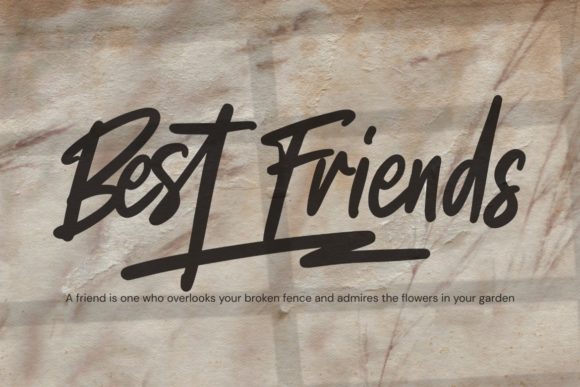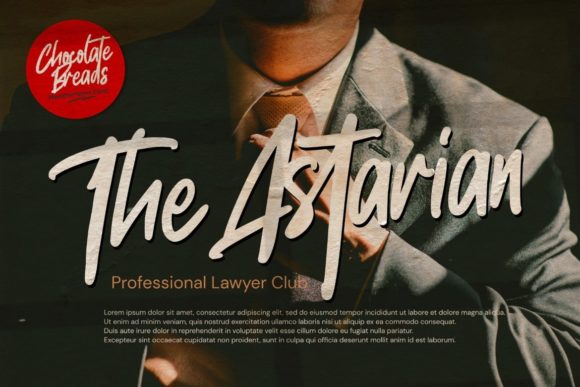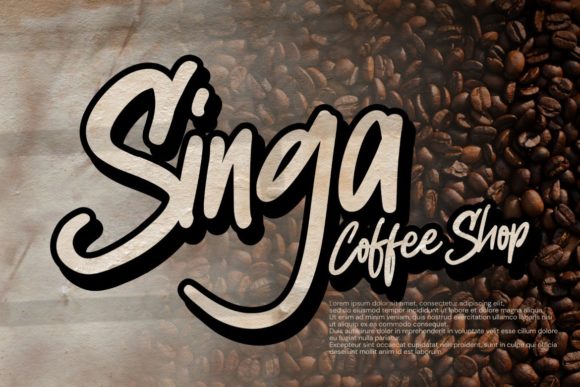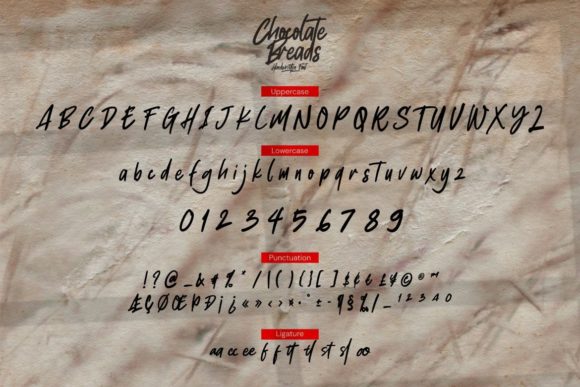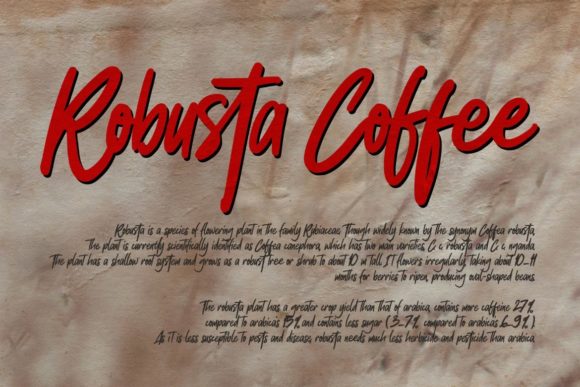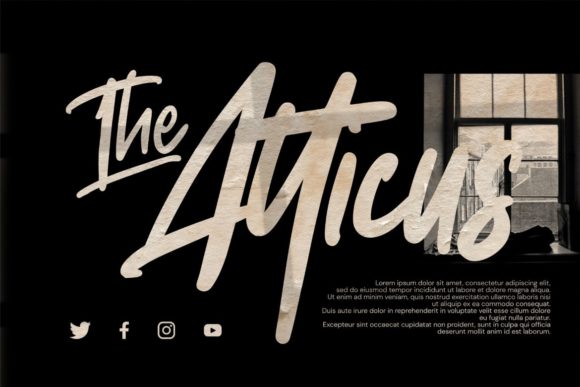
Introducing Chocolate Breads Font: The Sweetest Addition to Your Design Collection
Are you on the hunt for a font that adds a touch of whimsy and playfulness to your designs? Look no further than Chocolate Breads Font! This lovely script font is sure to capture the hearts of designers and crafters alike with its charming, dancing characters that seem to leap along the baseline. In this article, we’ll dive into the delightful world of Chocolate Breads Font and explore how it can elevate your creative projects to new heights.
The Charm of Chocolate Breads Font
Chocolate Breads Font is a script font that exudes warmth and personality. Its unique, hand-crafted characters are designed to evoke a sense of joy and playfulness, making it perfect for projects that require a touch of whimsy. Whether you’re working on a branding project, crafting a social media graphic, or creating a handmade card, Chocolate Breads Font is sure to add a dash of sweetness to your design.
One of the standout features of Chocolate Breads Font is its charming, dancing characters. Unlike traditional fonts that sit statically on the baseline, Chocolate Breads Font characters seem to leap and twirl along the line, adding a sense of movement and energy to your design. This unique feature makes it perfect for projects that require a touch of personality and flair.
Why Choose Chocolate Breads Font?
So, why should you choose Chocolate Breads Font for your next design project? Here are just a few reasons why this lovely script font stands out from the crowd:
- Unique and eye-catching: Chocolate Breads Font features charming, playful characters that are sure to capture attention and add a touch of personality to your design.
- Versatile: Whether you’re working on a branding project, social media graphic, or handmade craft, Chocolate Breads Font is versatile enough to adapt to any design style.
- Easy to read: Despite its playful nature, Chocolate Breads Font is surprisingly easy to read, making it perfect for projects that require a touch of whimsy without sacrificing legibility.
- Perfect for crafty projects: Chocolate Breads Font is a perfect fit for crafty projects, such as handmade cards, scrapbooking, and DIY crafts.
How to Use Chocolate Breads Font in Your Designs
Now that we’ve explored the charm and benefits of Chocolate Breads Font, let’s dive into some practical tips on how to use it in your designs:
Pair it with bold fonts:
For a striking contrast, pair Chocolate Breads Font with bold, sans-serif fonts. This will create a beautiful visual hierarchy and add depth to your design.
Use it for headings:
Chocolate Breads Font is perfect for headings and titles. Use it to add a touch of whimsy and personality to your design, and watch as it instantly elevates your project.
Add it to your branding:
If you’re looking to add a touch of personality to your brand, consider incorporating Chocolate Breads Font into your branding materials. It’s perfect for logos, business cards, and packaging.
In conclusion, Chocolate Breads Font is a lovely script font that is sure to add a touch of whimsy and playfulness to your designs. With its charming, dancing characters and versatile design, it’s perfect for a wide range of creative projects. Whether you’re a designer, crafter, or DIY enthusiast, Chocolate Breads Font is a sweet addition to your font collection. So why not give it a try and see how it can elevate your designs to new heights?
- Charming, playful characters
- Dancing characters that add movement and energy to your design
- Unique and eye-catching
- Versatile and adaptable to any design style
- Easy to read
- Perfect for crafty projects